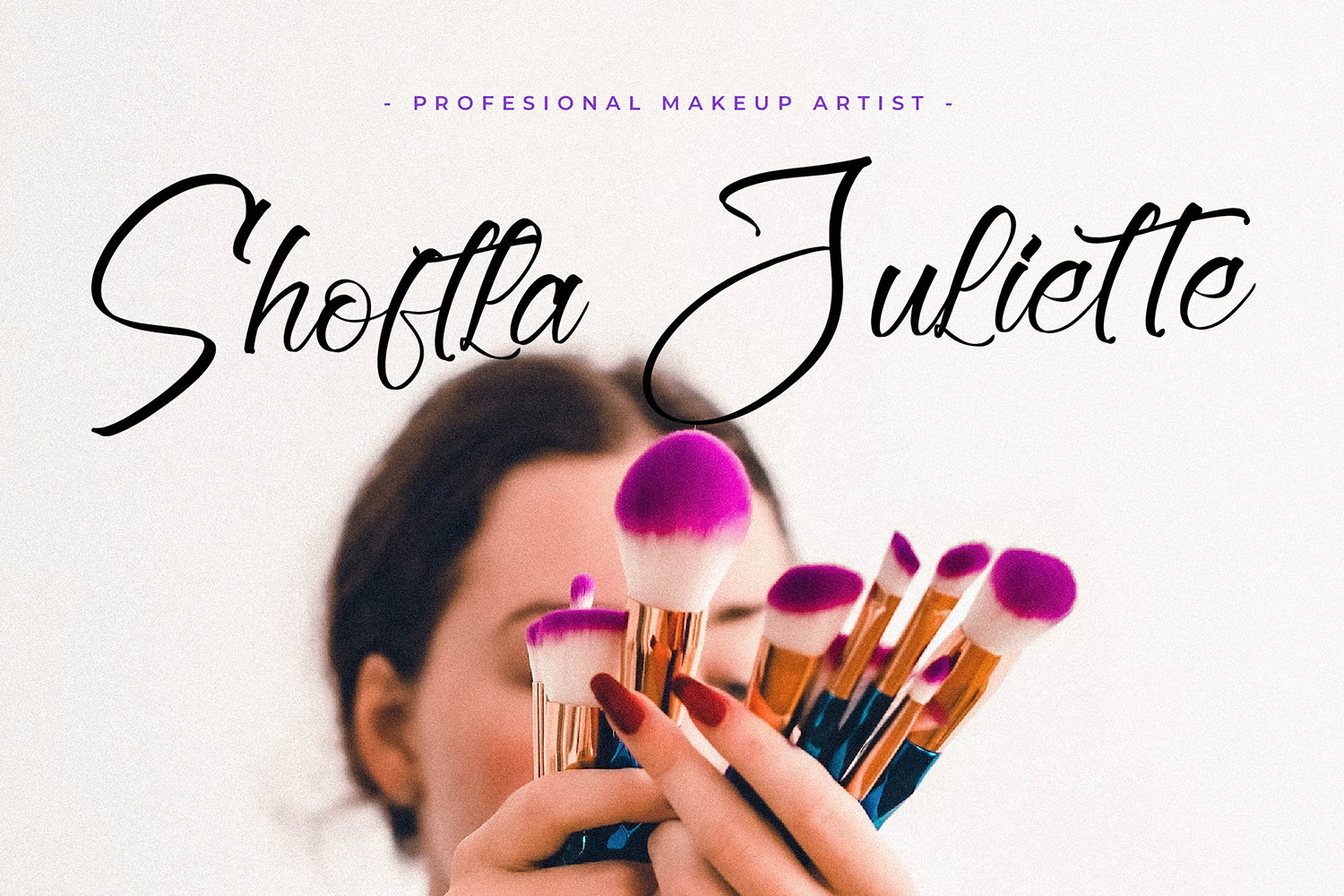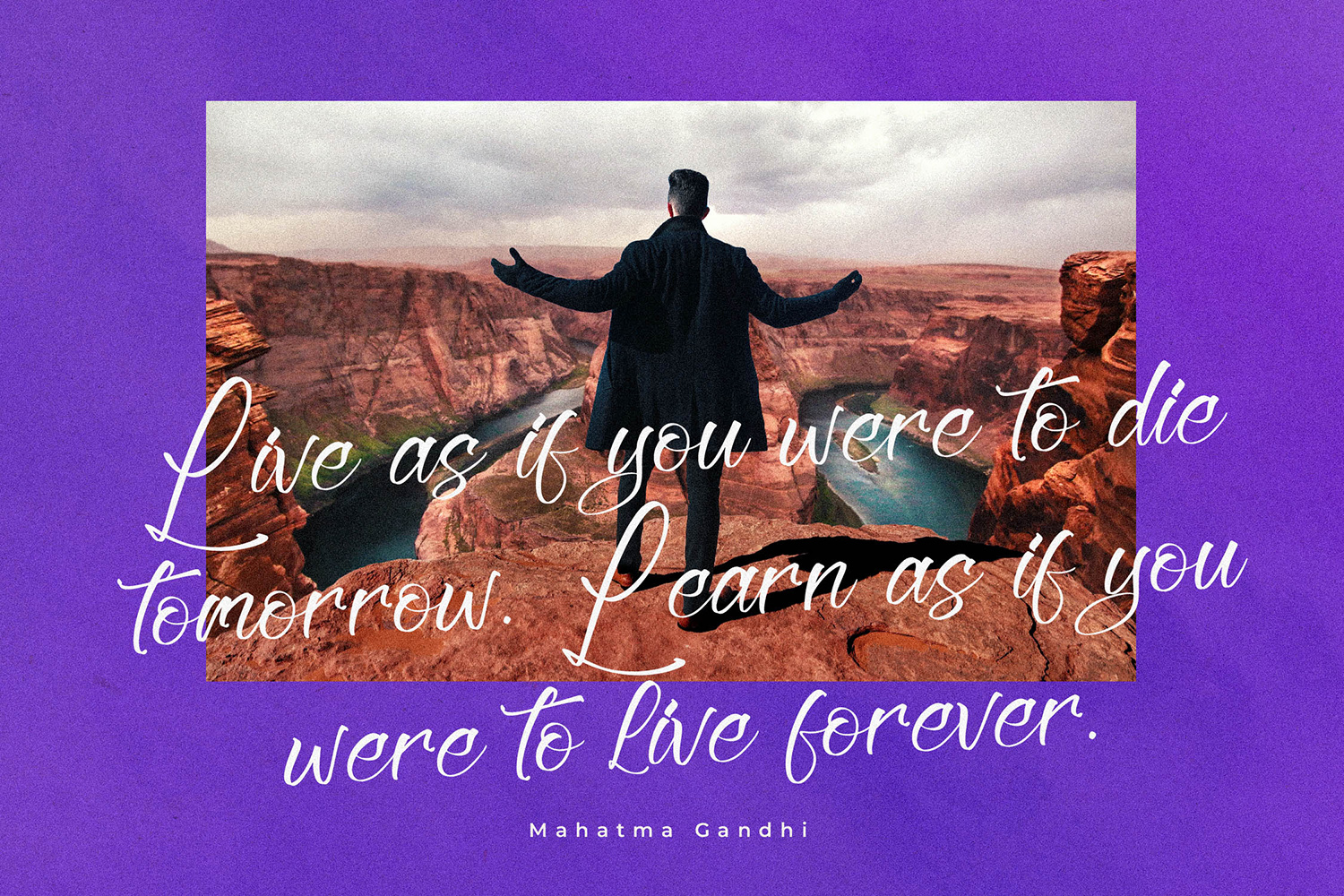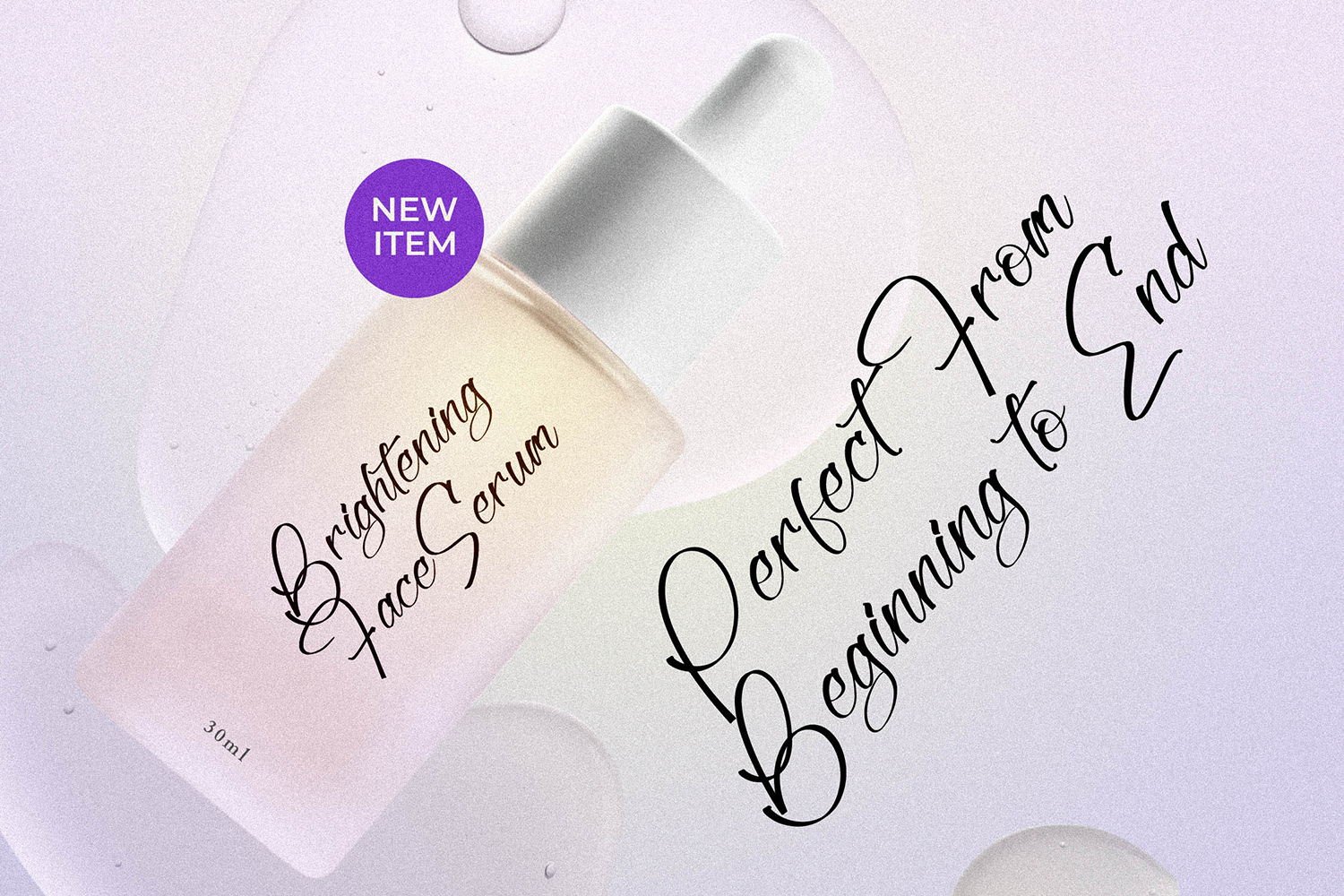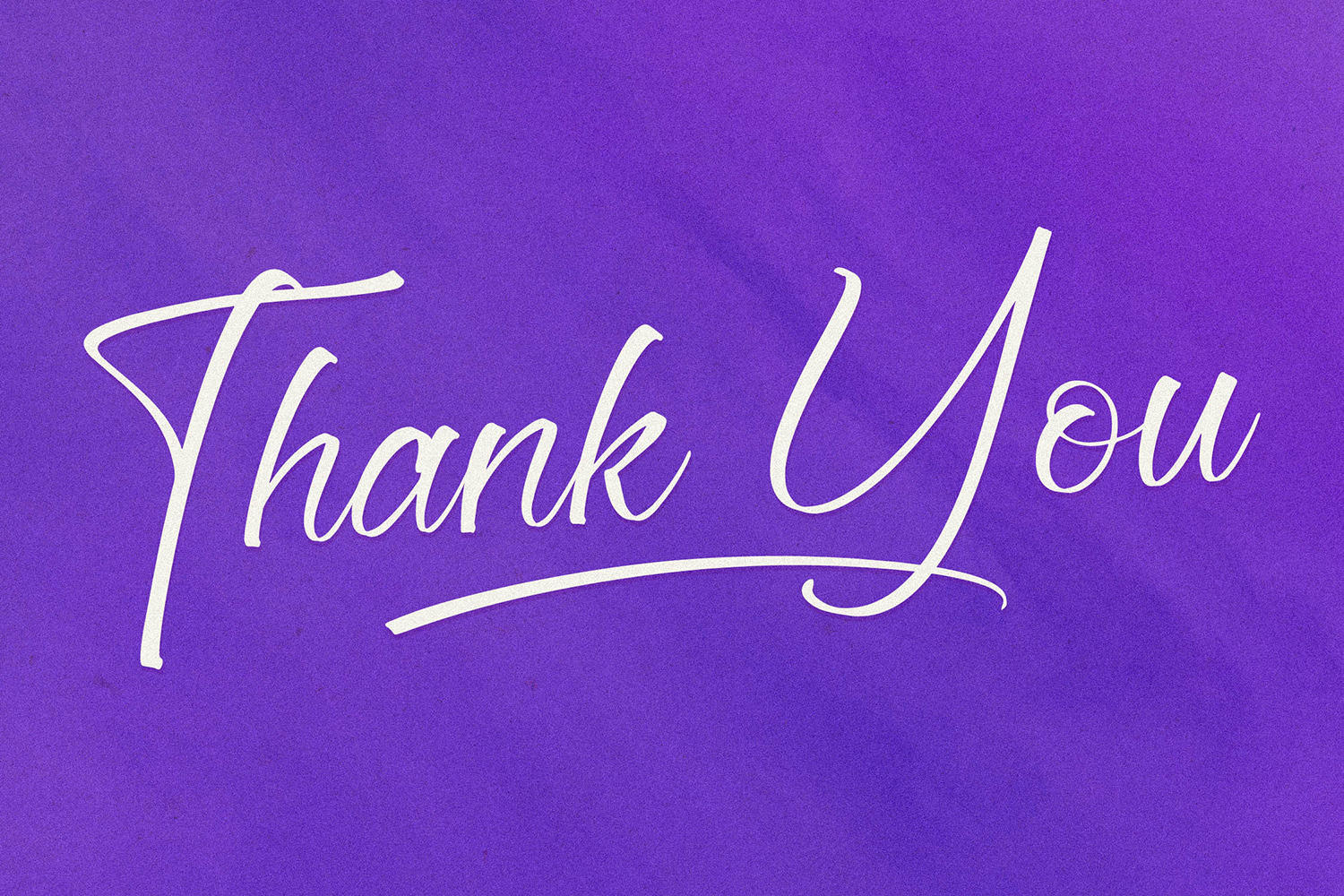
Ballmy Gettmorg Free Font
Ballmy Gettmorg Free Font is a modern calligraphy brush font that exudes effortless elegance and sophistication. With its fluid strokes and whimsical letterforms, this font adds a touch of playful charm to any design project. Perfect for adding a hand-written feel to your designs, Ballmy Gettmorg is the ideal font for invitations, social media posts, and branding materials. Download it now and add a touch of personality to your designs.